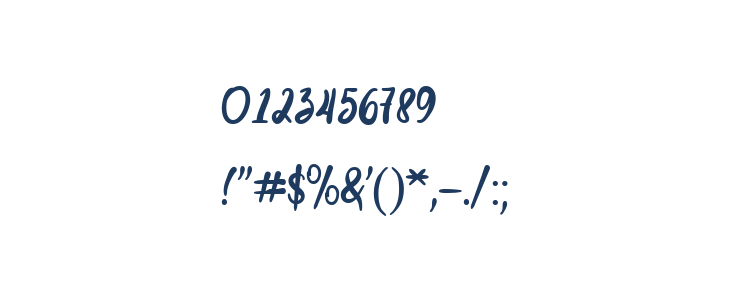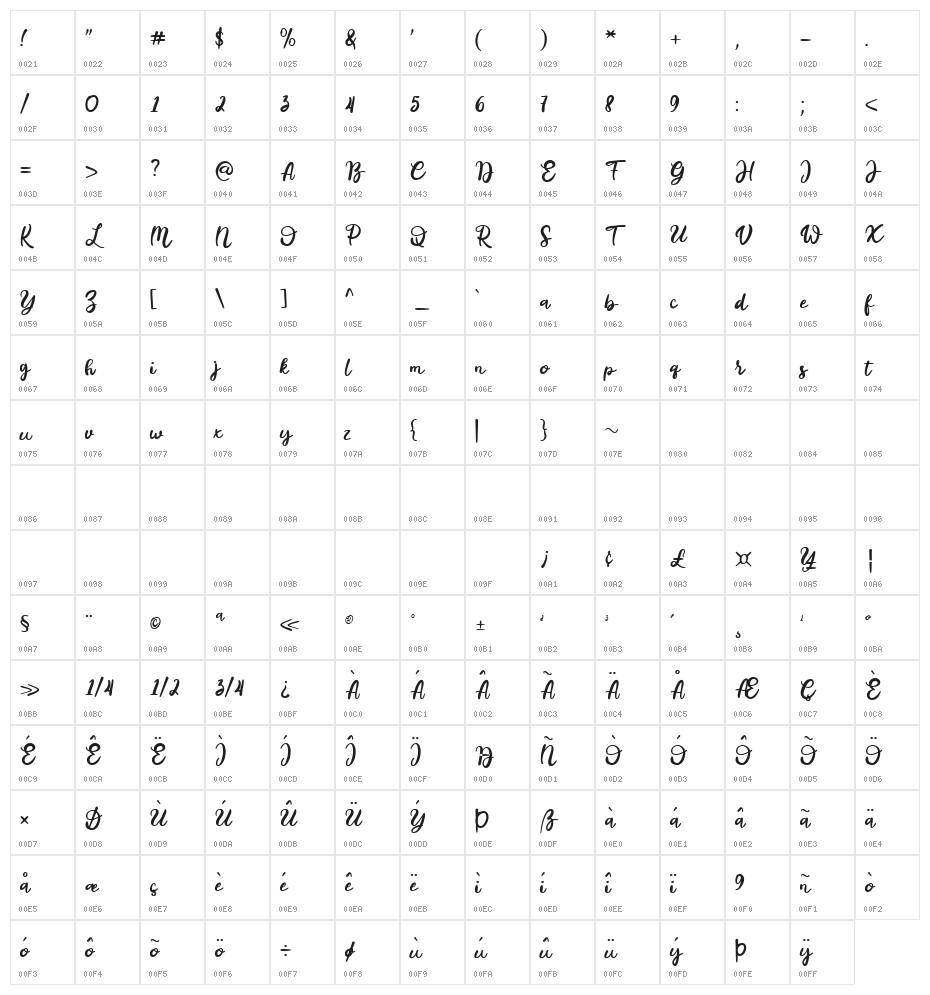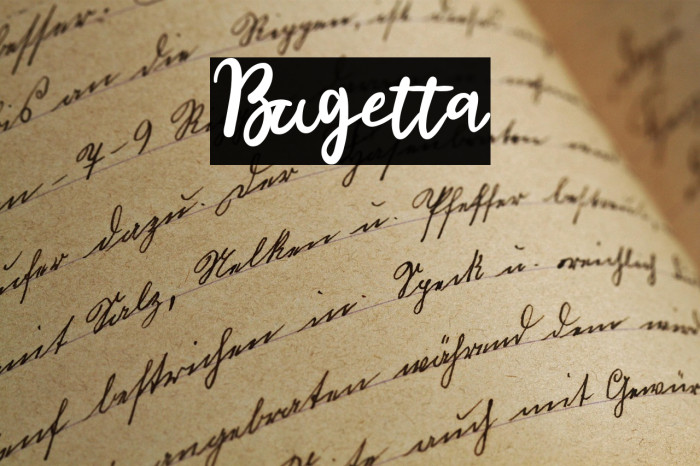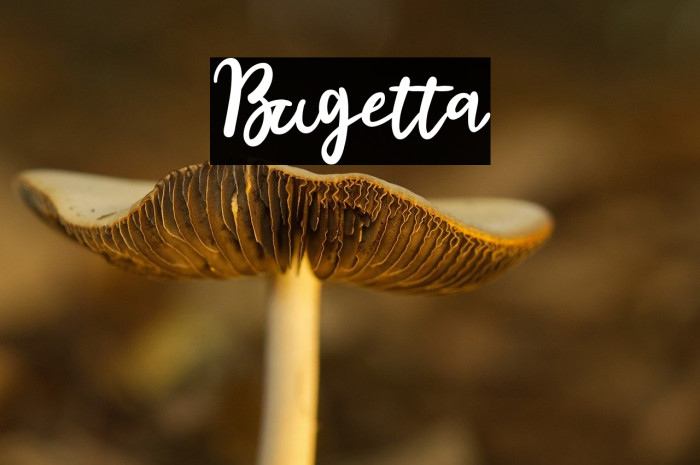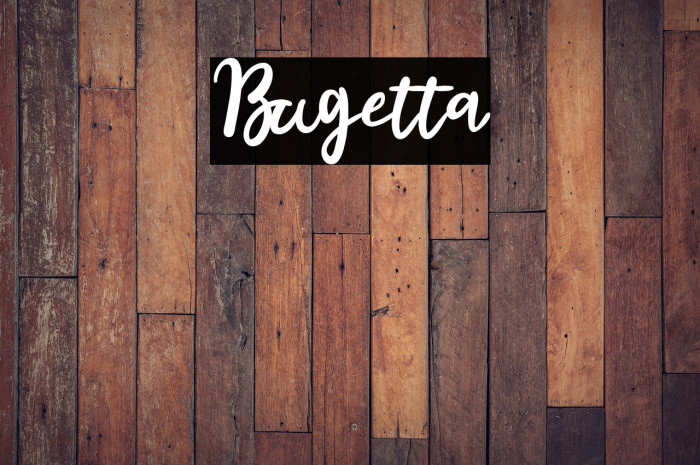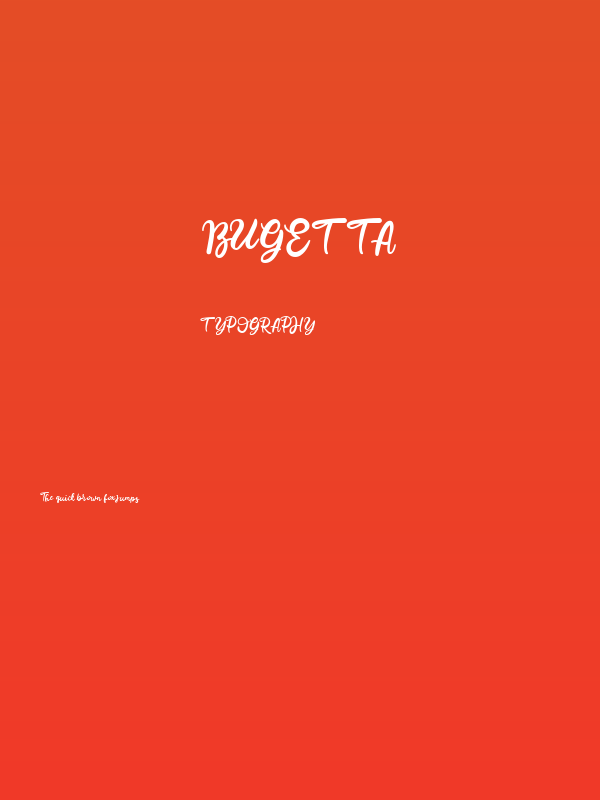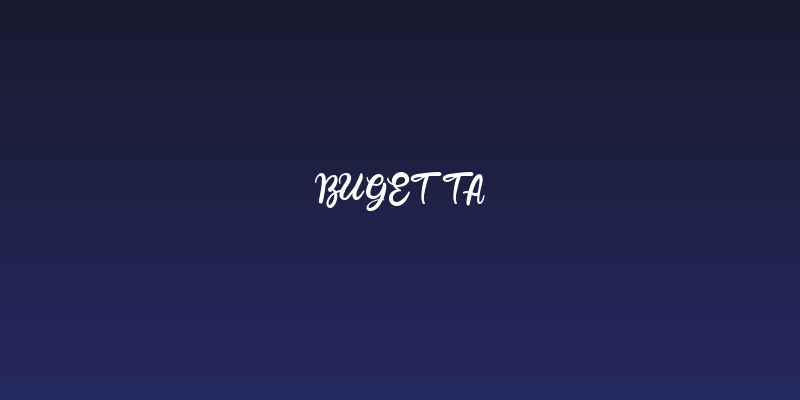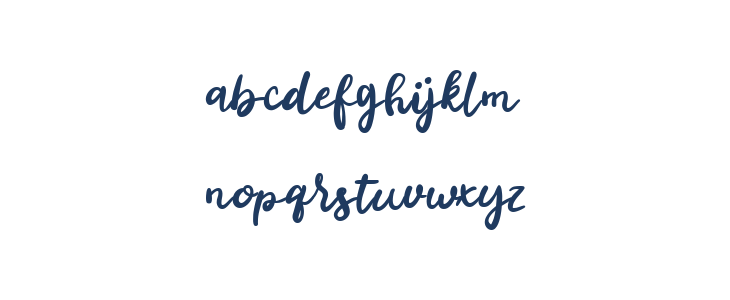
Bugetta Font
Bugetta Description
This font exhibits a lively and flowing script style, characterized by its smooth, cursive letterforms that evoke a sense of elegance and sophistication. The uppercase letters are bold and slightly slanted, with intricate loops and swirls that add a decorative flair. The lowercase letters maintain a consistent flow, connecting seamlessly to create a harmonious and fluid appearance. The numerals are styled to match the cursive nature of the alphabet, ensuring a cohesive look throughout. Special characters are thoughtfully designed to complement the overall aesthetic, making this font suitable for a variety of creative applications.
| Overall Style | Elegant, Decorative |
| Use Case | Logos, Invitations, Decorative Text |
| Proposed Projects | Ideal for wedding invitations, greeting cards, branding projects, and elegant signage. |